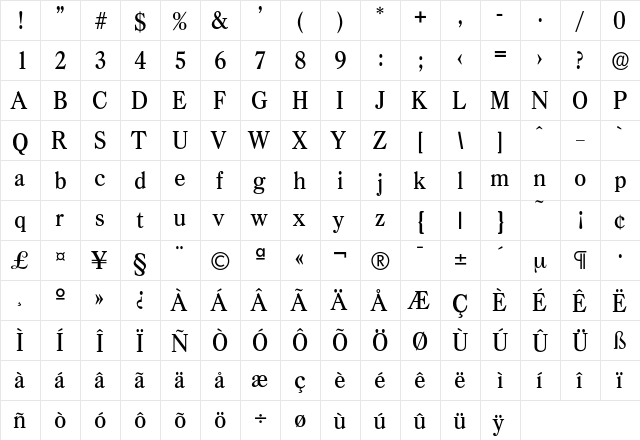
Casad-Medium Regular
Design Context for Casad-Medium Typeface
Casad-Medium is a composed and adaptable typeface that performs quietly and consistently across a wide range of design contexts.